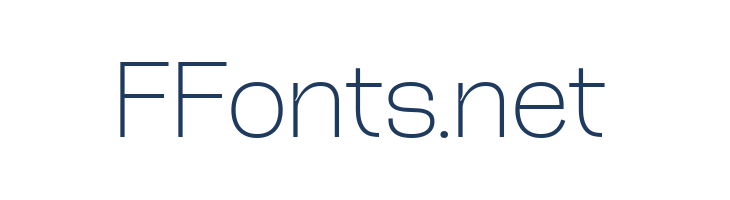
Heuvel Grotesk DEMO Extra Light Font
Heuvel Grotesk DEMO Extra Light Description
A clean, modern, sans-serif font with a thin, elegant stroke and a slightly rounded appearance.
| Overall Style | Modern, Minimalist |
| Use Case | Headlines, Body text, Logos, Digital interfaces |